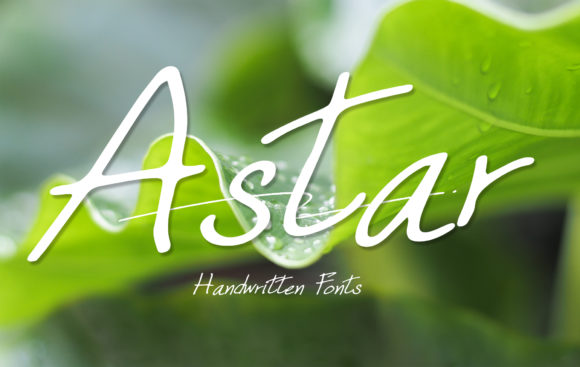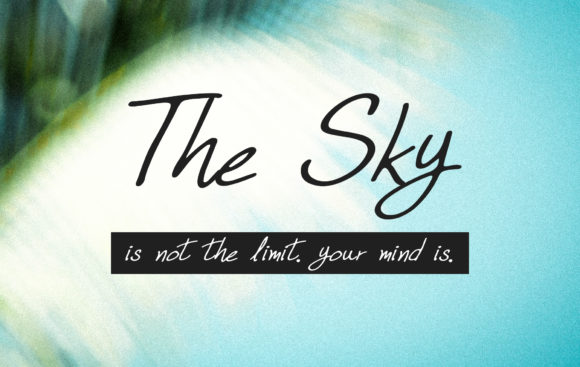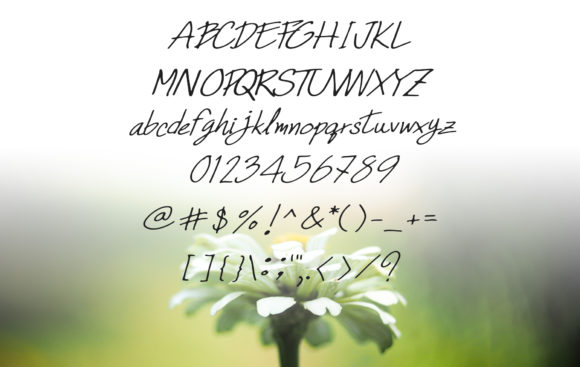
HomeScript FontsAstar Font Script Fonts Astar Font FacebookXPinterestWhatsApp Astar Font Poster 2 Astar Font Poster 3 About Astar Font Astar features fun handwritten characters and charming curves, delivering a smooth font experience. DOWNLOAD NOW People also explored Jelystta Font Jasper Font Vriegbe Font Cottage Designer Font Broken Font Daily Santa Font Epines Font Florentyno Font Chocoffee Font 313 0 TagsAstar Font Previous articleWatercolor FontNext articleArchitar Font LEAVE A REPLY Cancel reply Comment: Please enter your comment! Name:* Please enter your name here Email:* You have entered an incorrect email address! Please enter your email address here Website: Save my name, email, and website in this browser for the next time I comment. Personal Use Free Anders Personal Use Free Read more about this font Mallvirra Personal Use Free Read more about this font Kumadinya Personal Use Free Read more about this font Millea Personal Use Free Read more about this font BLOG Transform Your Website: Elevate Your Typography with 7 Best Web Font Generators Are you ready to transform your website's typography from ordinary to extraordinary? Great! Today, we're diving into the world of web font generators, which... Top 10 Handwritten Fonts That Elevate Your Designs Top 7 Google Fonts Alternatives for Faster and Privacy-Friendly Web Design (2025) Exploring Font Trends